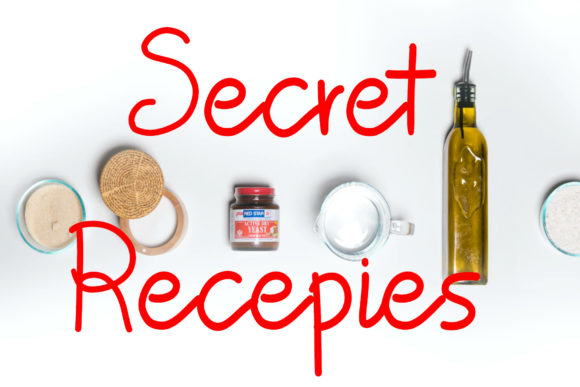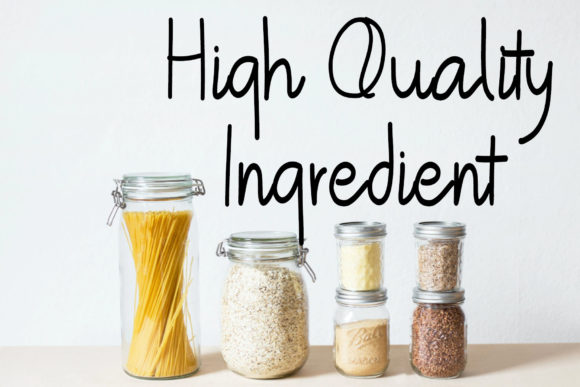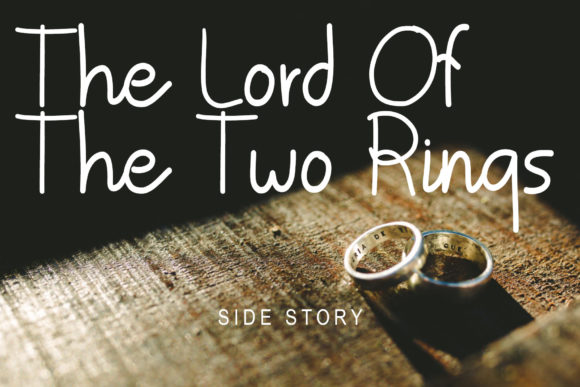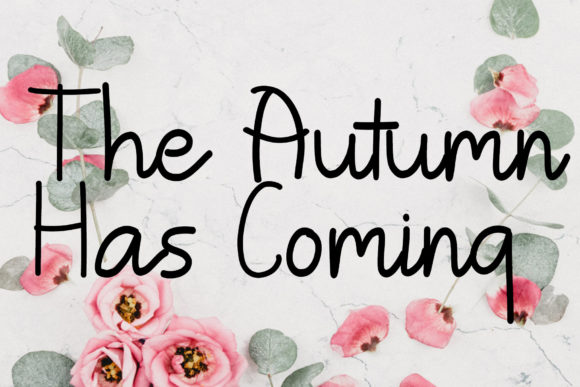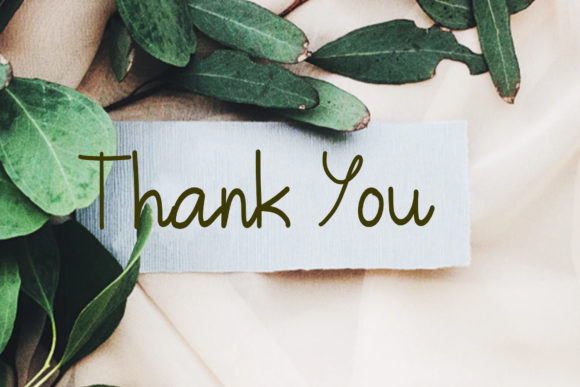
Birmingham Font
About Birmingham Font
Birmingham is a sweet and delicate handwritten font. Dainty and joyful, this font will be ideal for writing wedding invitations, cards or any other design that may need a romantic, personalized touch!